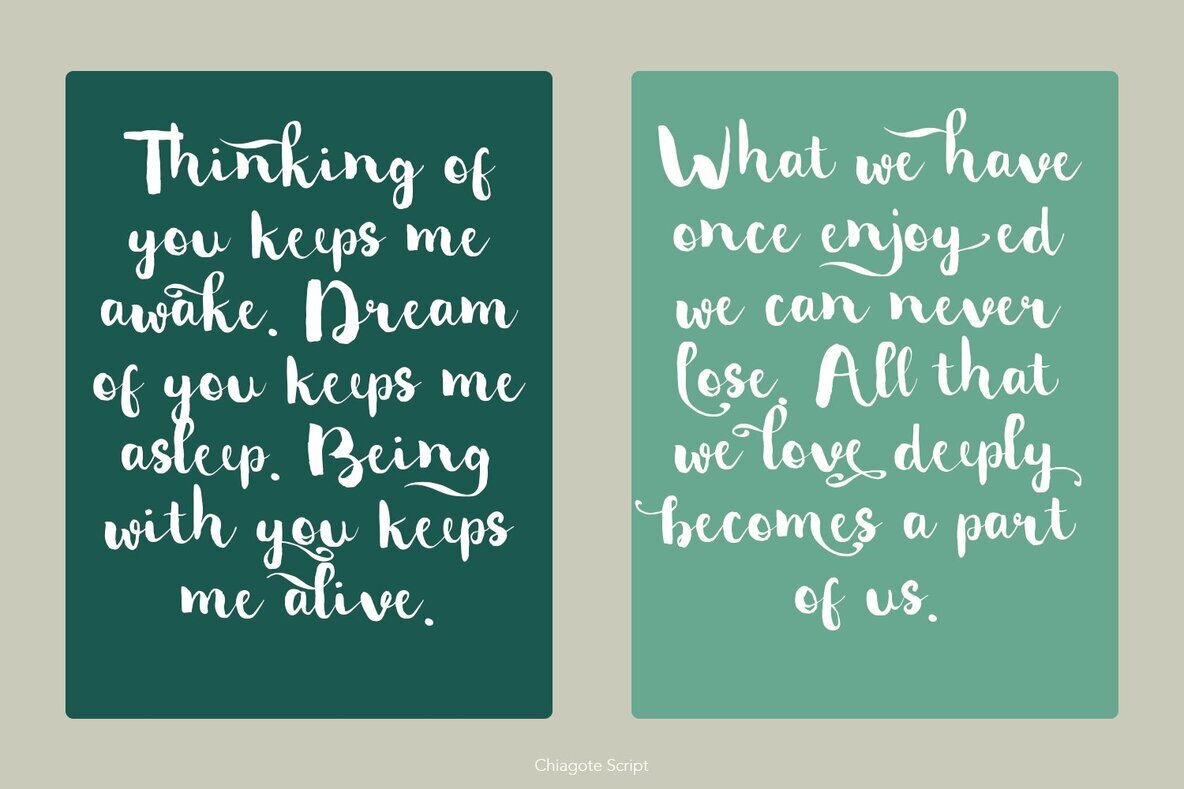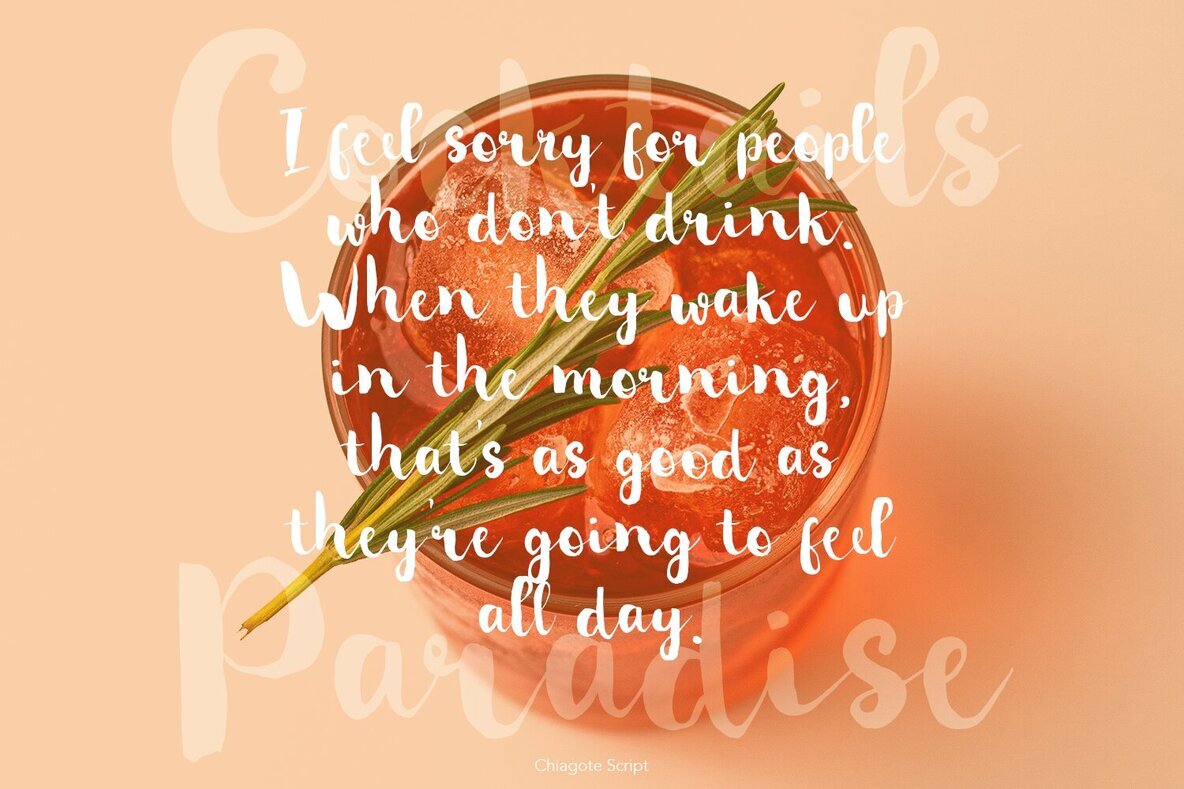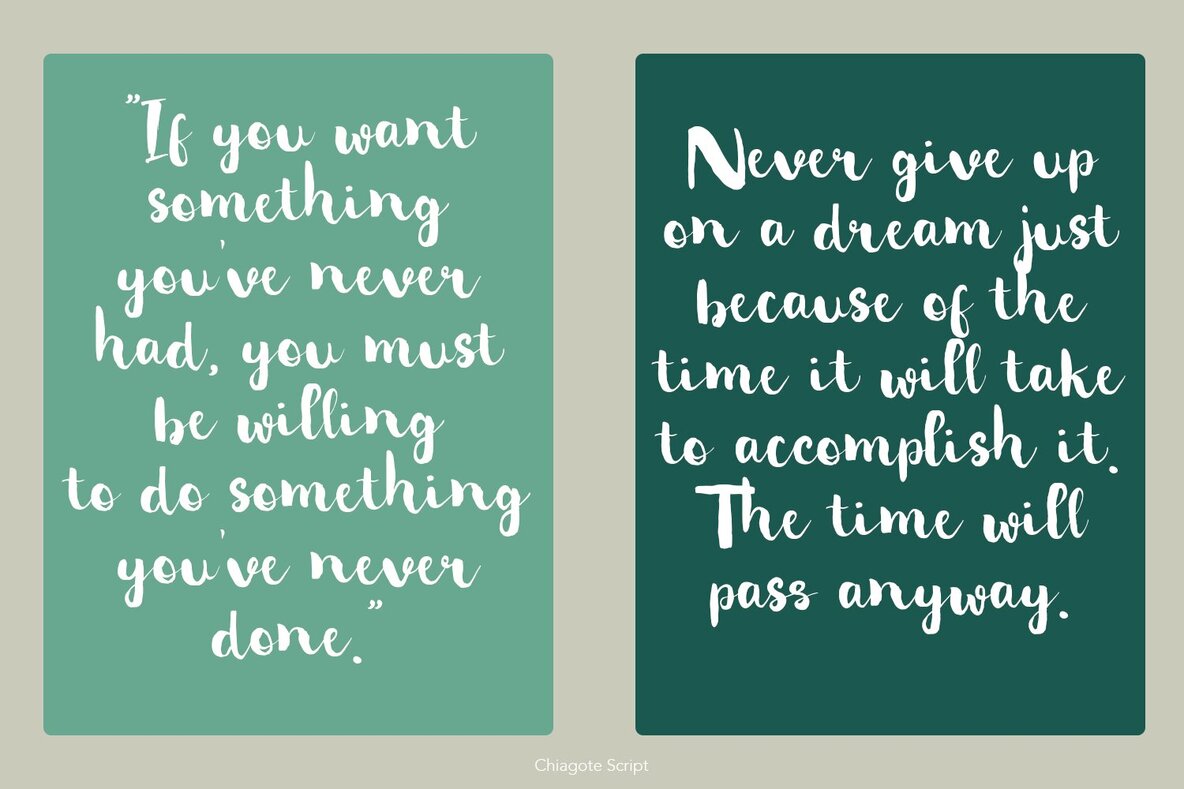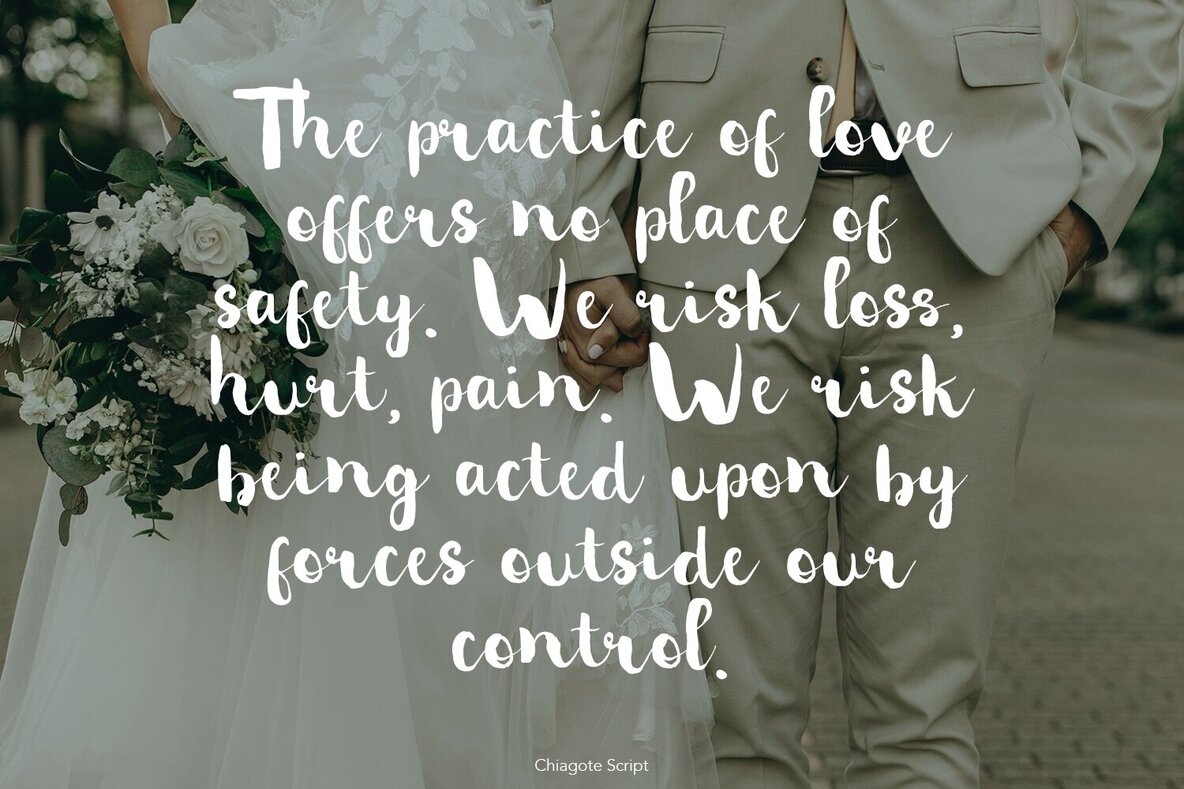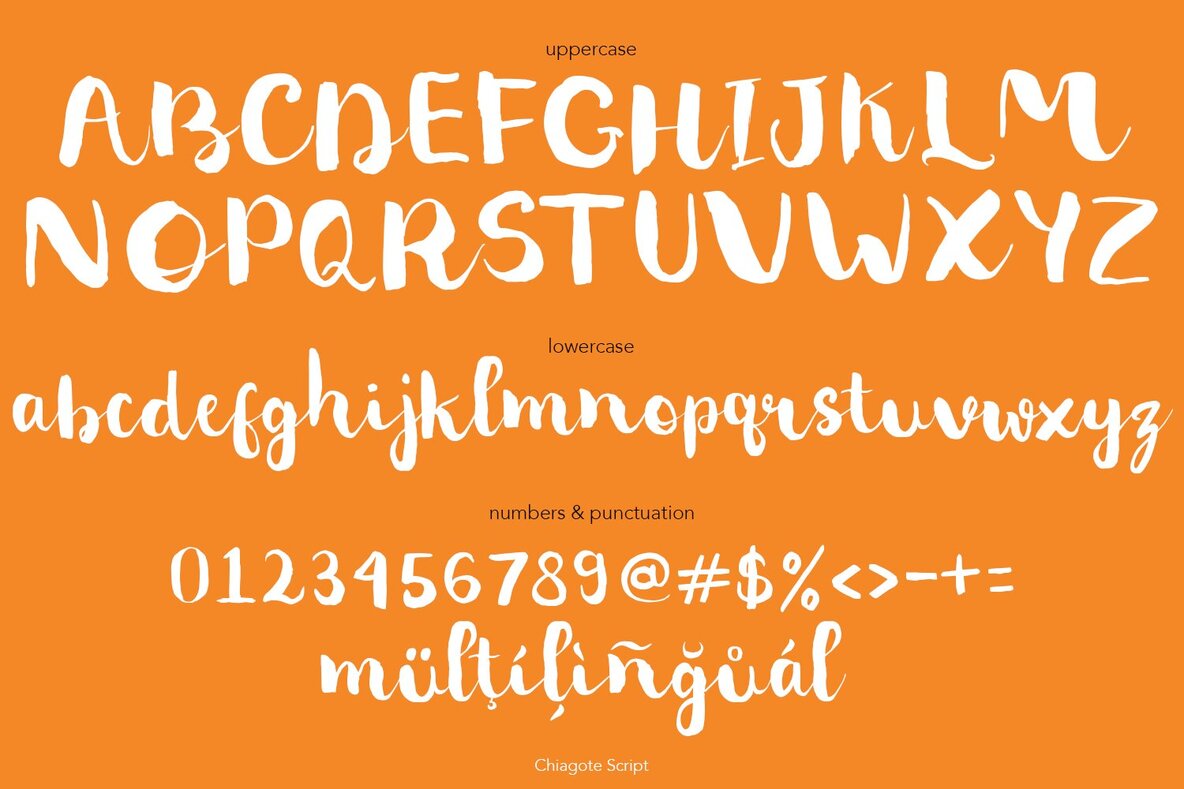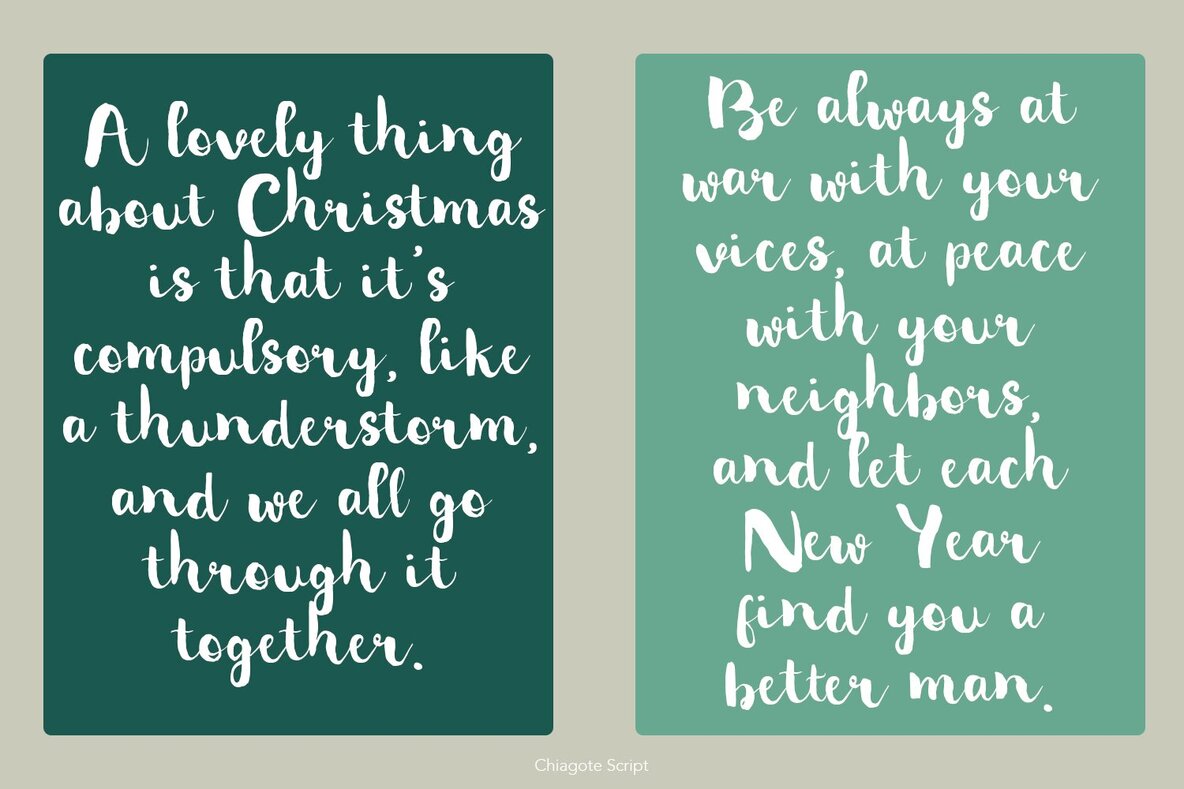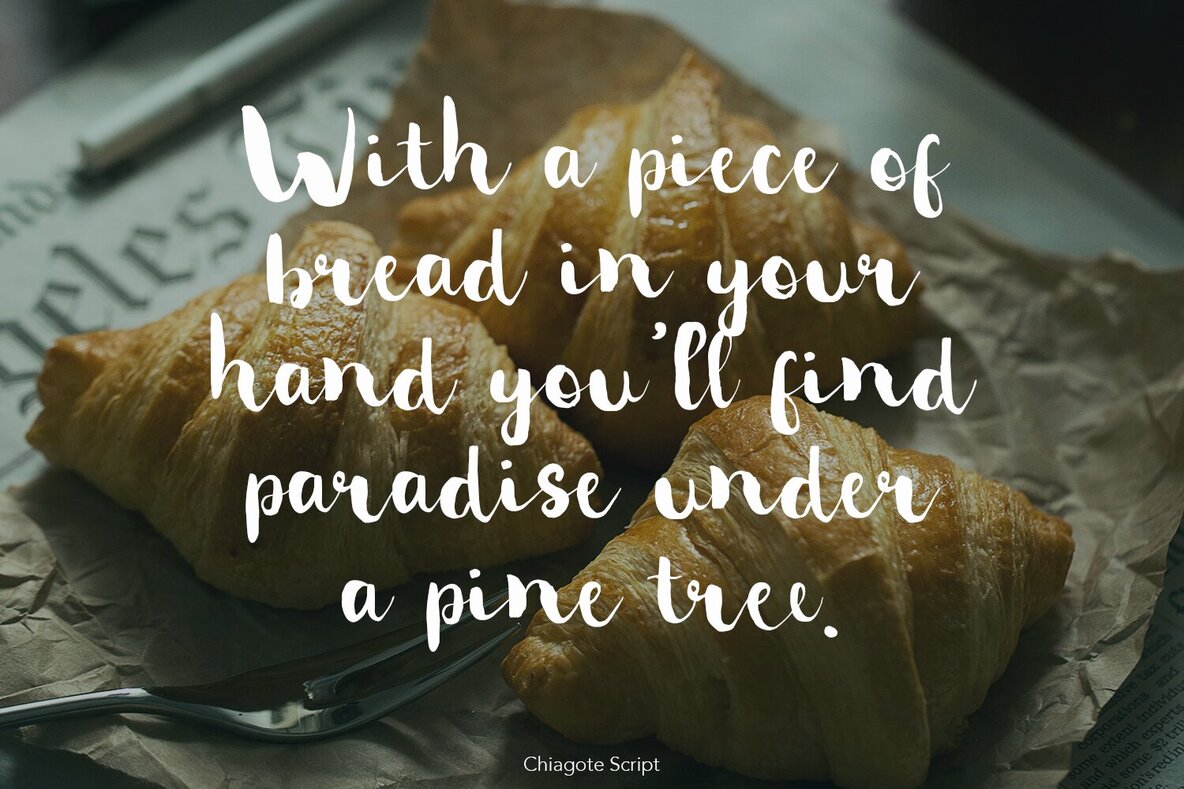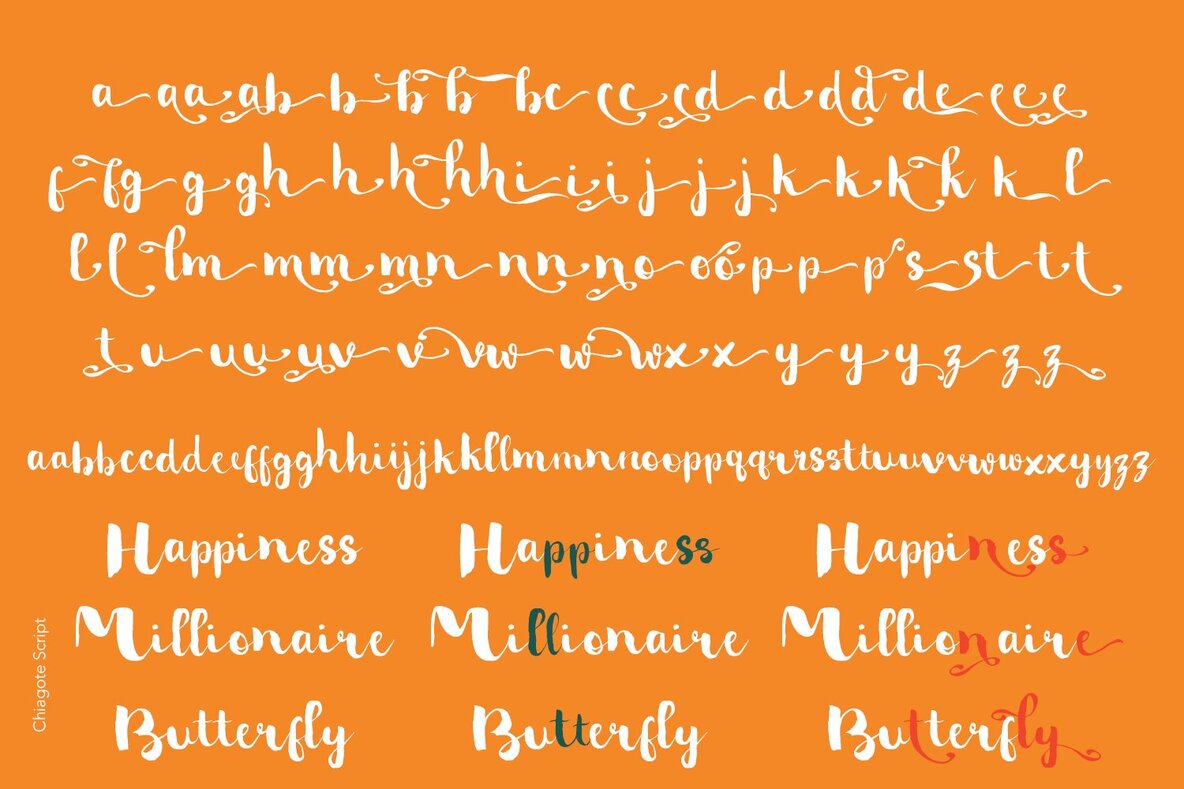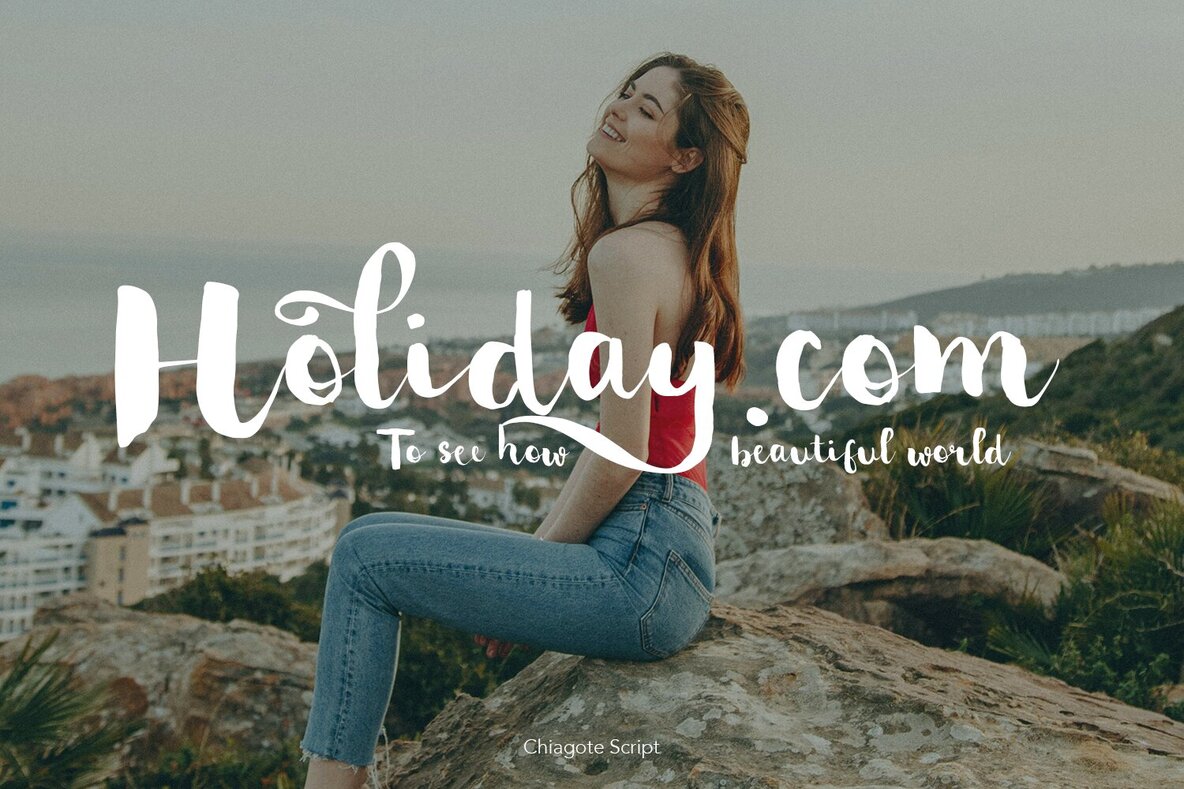
Chiagote Font
Chiagote is a realistic brush script font that delivers a natural and fluid look, making it an excellent choice for a wide range of creative projects. With a variety of alternative characters, this versatile font is ideal for poster design, book covers, merchandise, fashion campaigns, newsletters, branding, and advertising. Its dynamic and expressive style also suits magazine layouts, greeting cards, and album covers, offering a hand-crafted touch that enhances visual appeal.
Whether you're working on a bold advertising campaign or an elegant magazine spread, Chiagote provides the flexibility and authenticity needed to make your designs stand out. The attention to detail in the brush strokes adds a sense of realism and creativity, making it a go-to font for designers aiming to create impactful and memorable work.